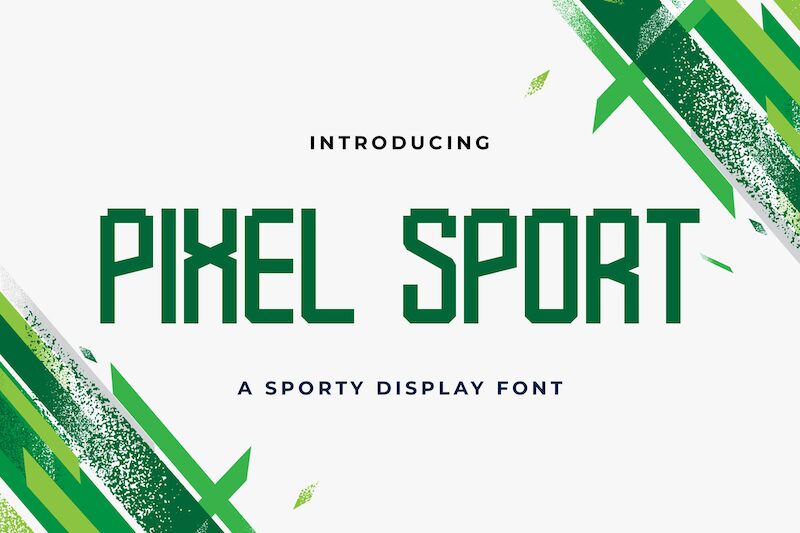
Pixel Sport
Pixel Sport font by StringLabs Creative Studio is a condensed techno display font with blocky construction and geometric shapes. Its modern, tech-inspired feel evokes a sense of nostalgia for early computing, making it perfect for retro digital aesthetics.
Use this free font for sports team logos, trading cards, video game design titles, mobile apps development projects, gaming websites and ads. Create magazine covers or build epic movie posters that will have your audiences hooked before they even view what you’re introducing!